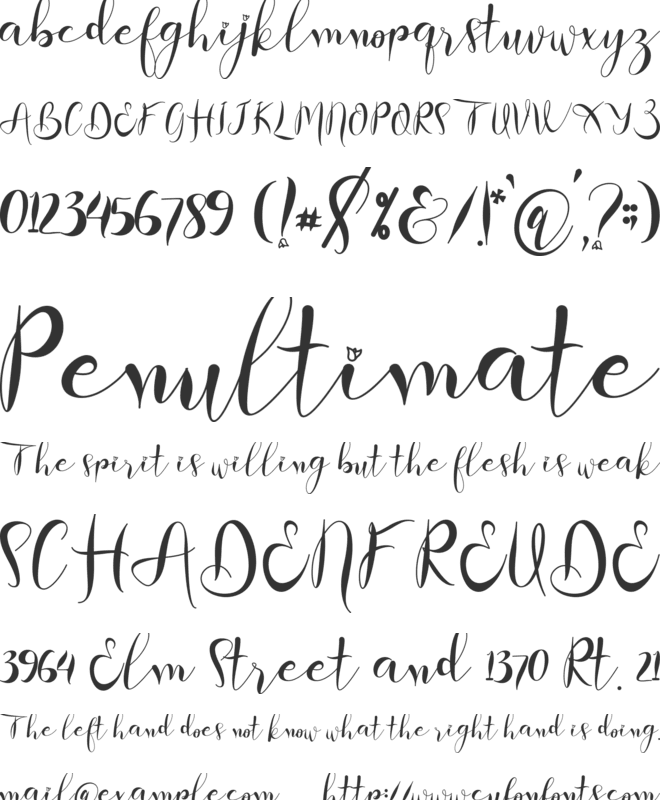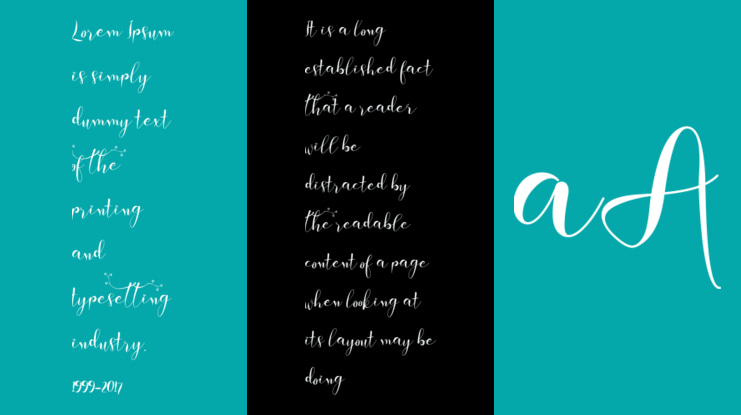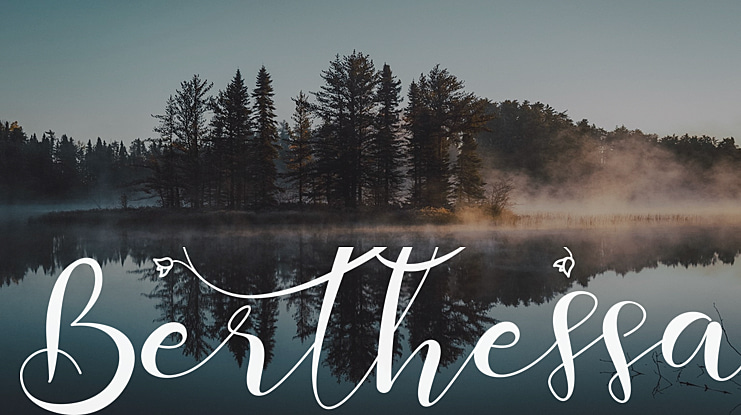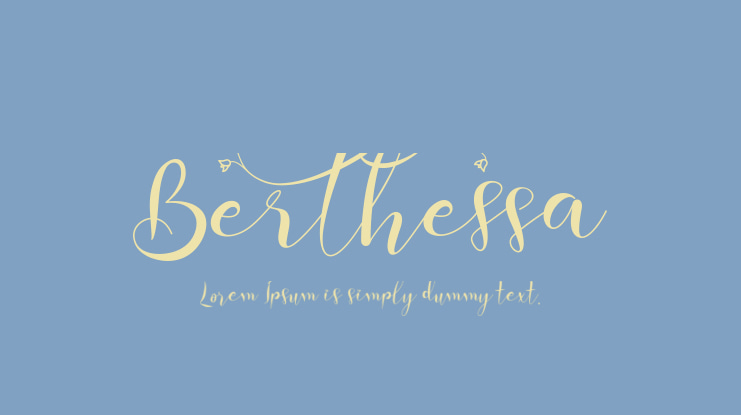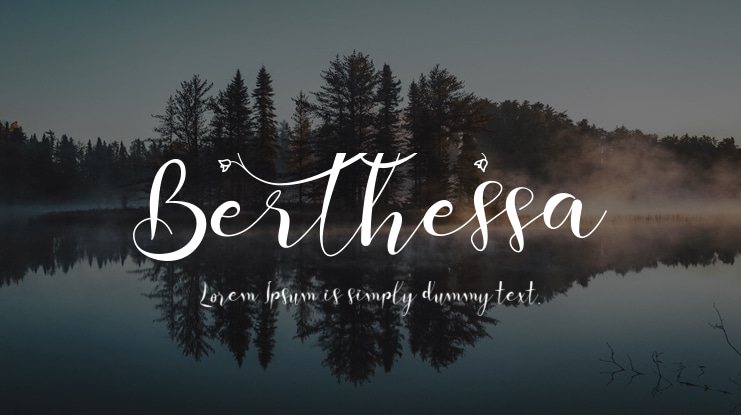
Berthessa Font
Berthessa is a handwritten script font that is lovingly crafted to produce outstanding work. This font is very beautiful and elegant which is suitable for all kinds of your work. This font is perfect for all wedding needs (wedding invitations, wedding photography, decorations, and other wedding designs). It is also suitable for promoting your business (hotels, villas, vacation spots, products, services or other promotions. Also suitable for promo updates, logos, branding, posters, or status updates on social media, making romantic words, or quotes.